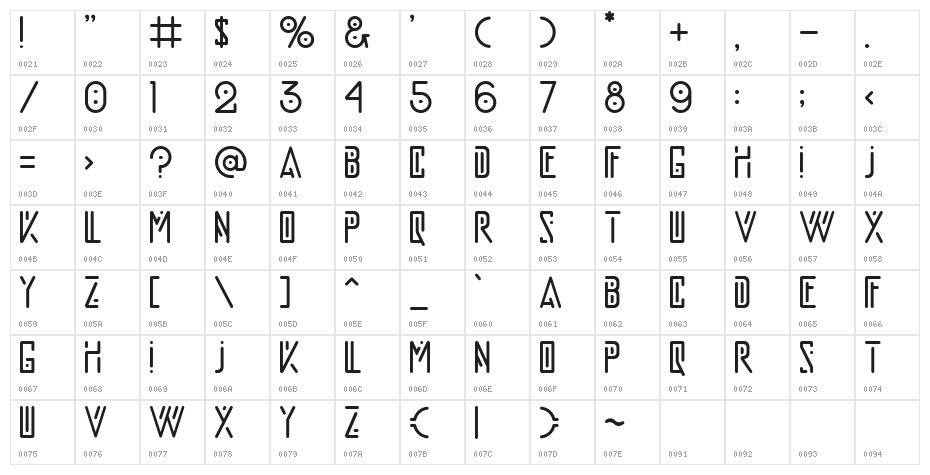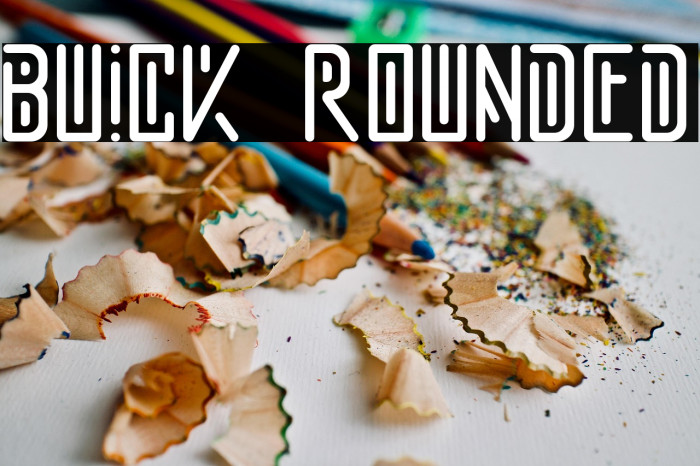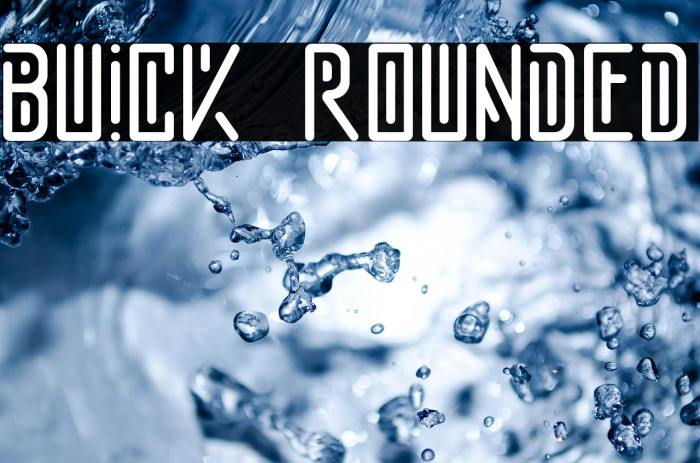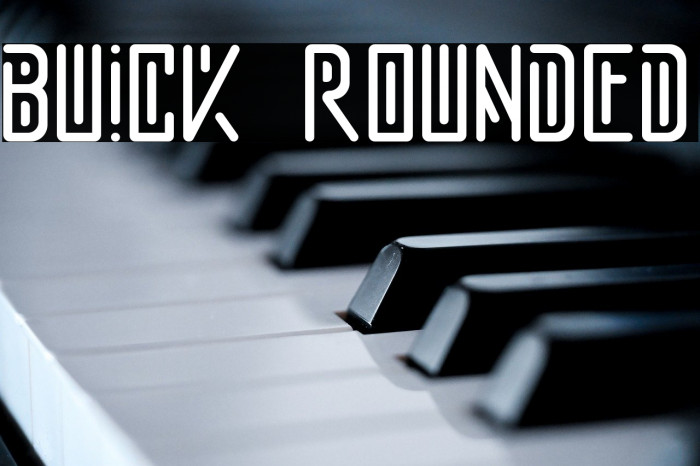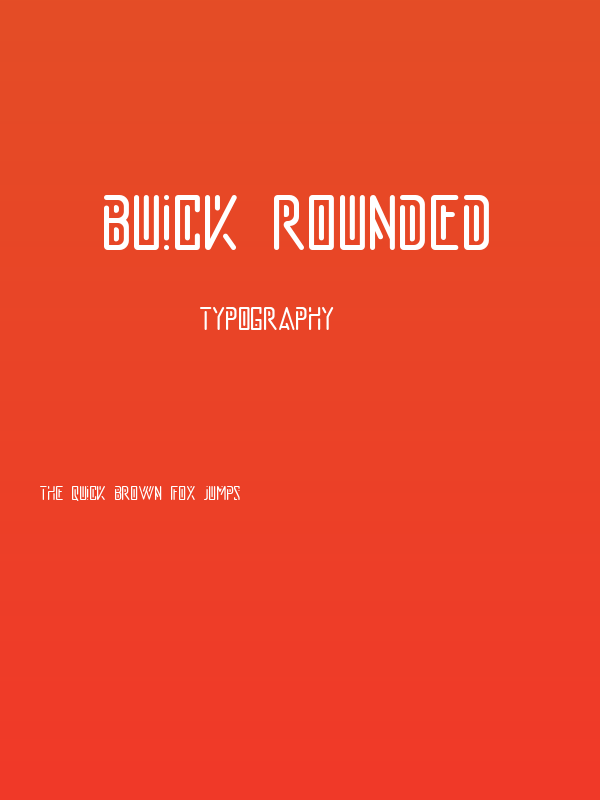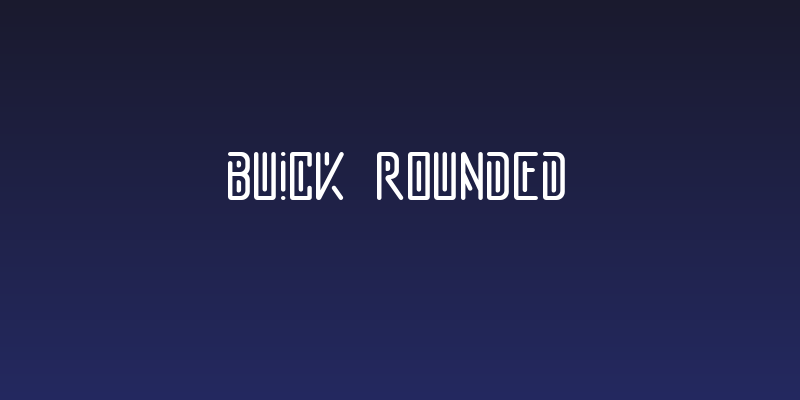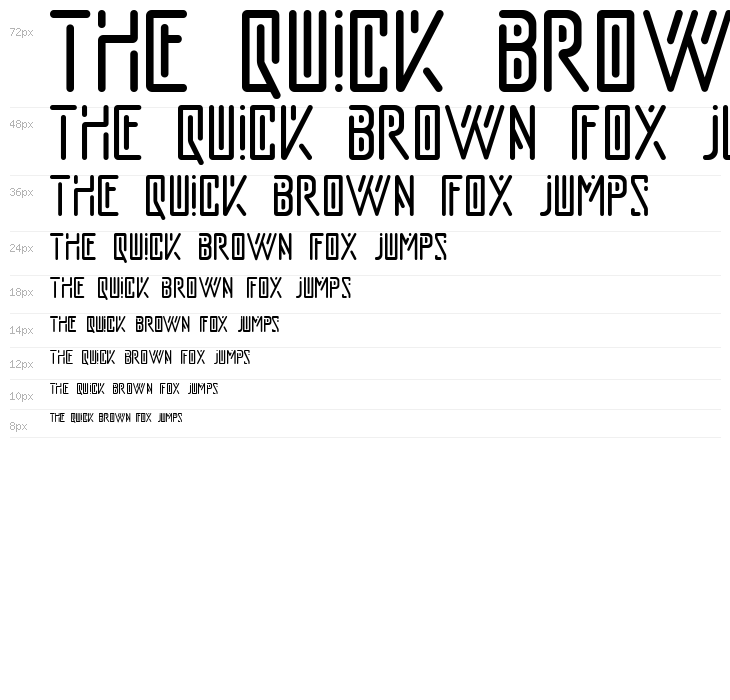
buick rounded Font
buick rounded Description
This font features a unique, modern design with rounded edges and a geometric structure. The characters are bold and have a futuristic appeal, with consistent stroke widths and a clean, minimalistic look. The uppercase and lowercase letters maintain a uniform style, while the numbers and special characters are designed to complement the overall aesthetic. The font's rounded corners and smooth curves give it a friendly and approachable feel, making it suitable for a variety of design projects.
| Use Case | Headlines, Logos, Branding |
| Proposed Projects | Ideal for branding, logos, tech-related designs, and modern advertising. |